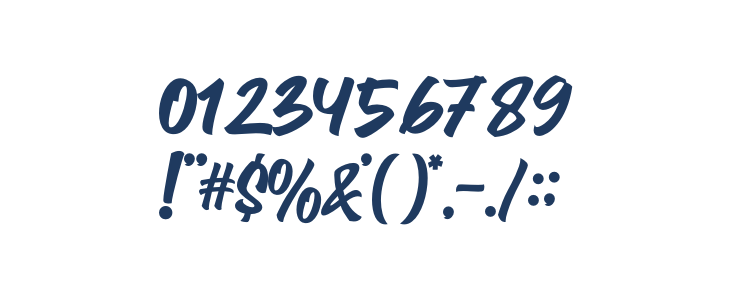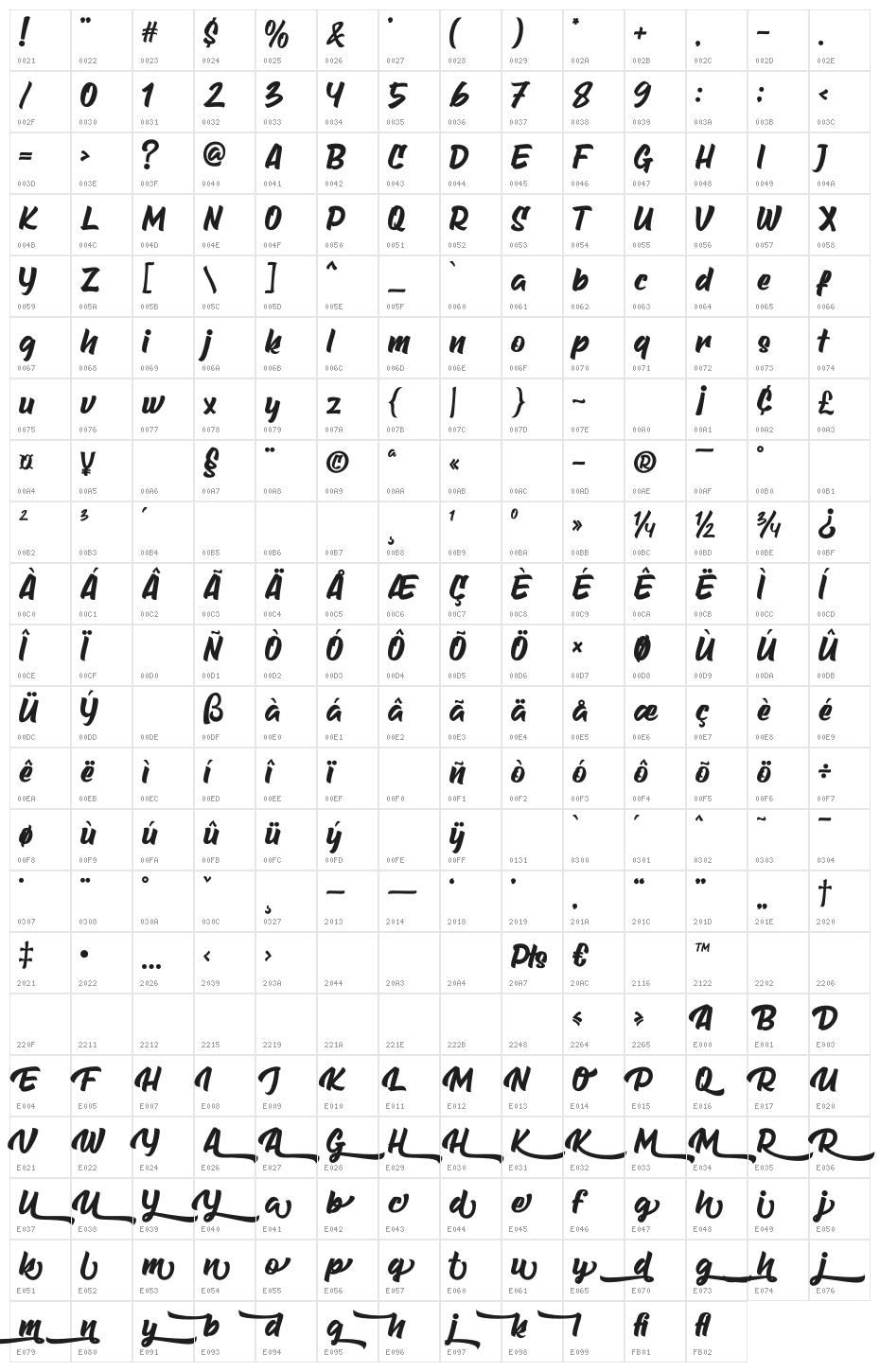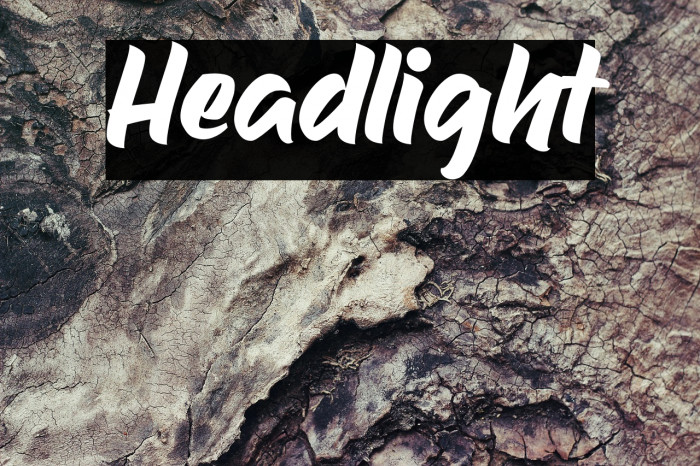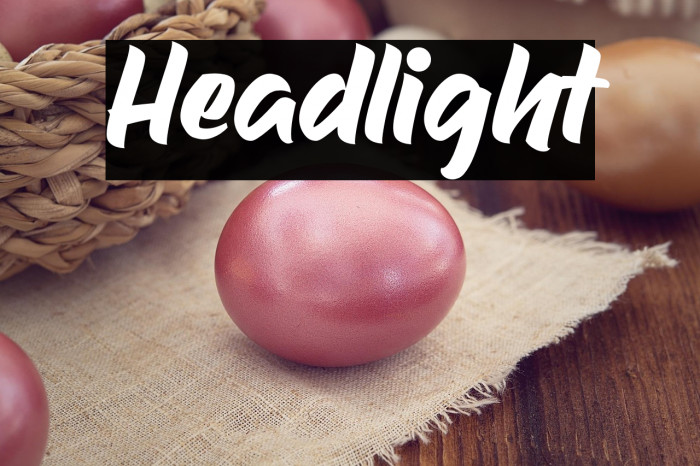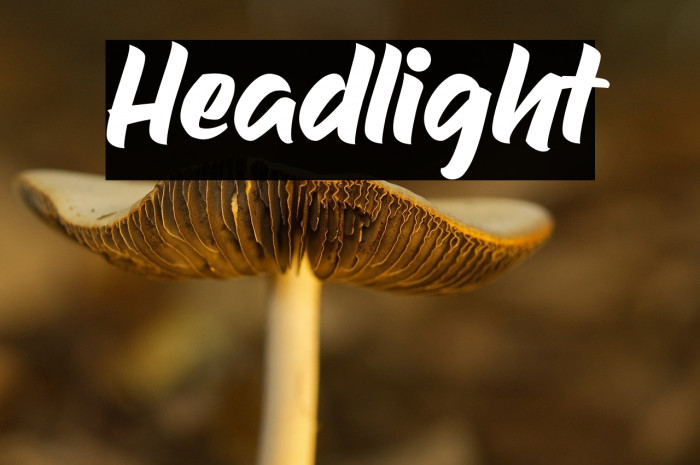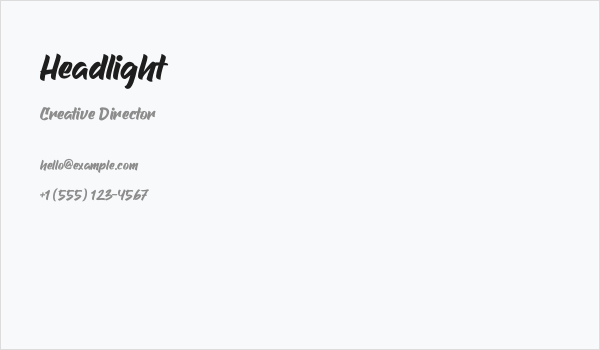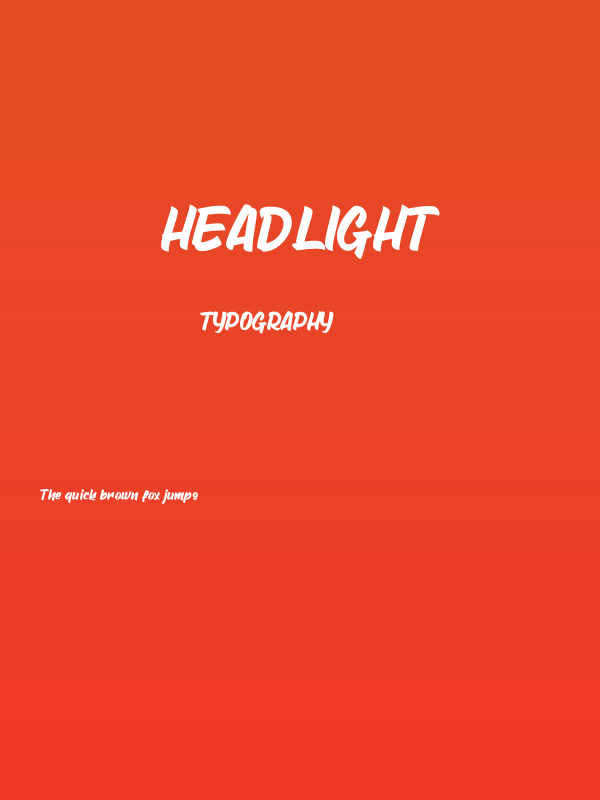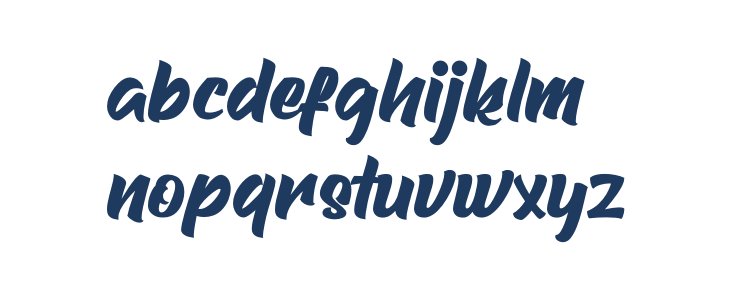
Headlight Font
Headlight Description
This font features a bold, energetic script style with a hand-drawn appearance. The letters are connected in a fluid manner, giving it a dynamic and lively feel. The strokes are thick and consistent, providing a strong visual impact. The uppercase letters are slightly more angular, while the lowercase letters maintain a smooth, cursive flow. Numbers and special characters are designed to match the overall style, ensuring a cohesive look across all text. This font is ideal for projects that require a personal touch or a sense of movement and excitement.